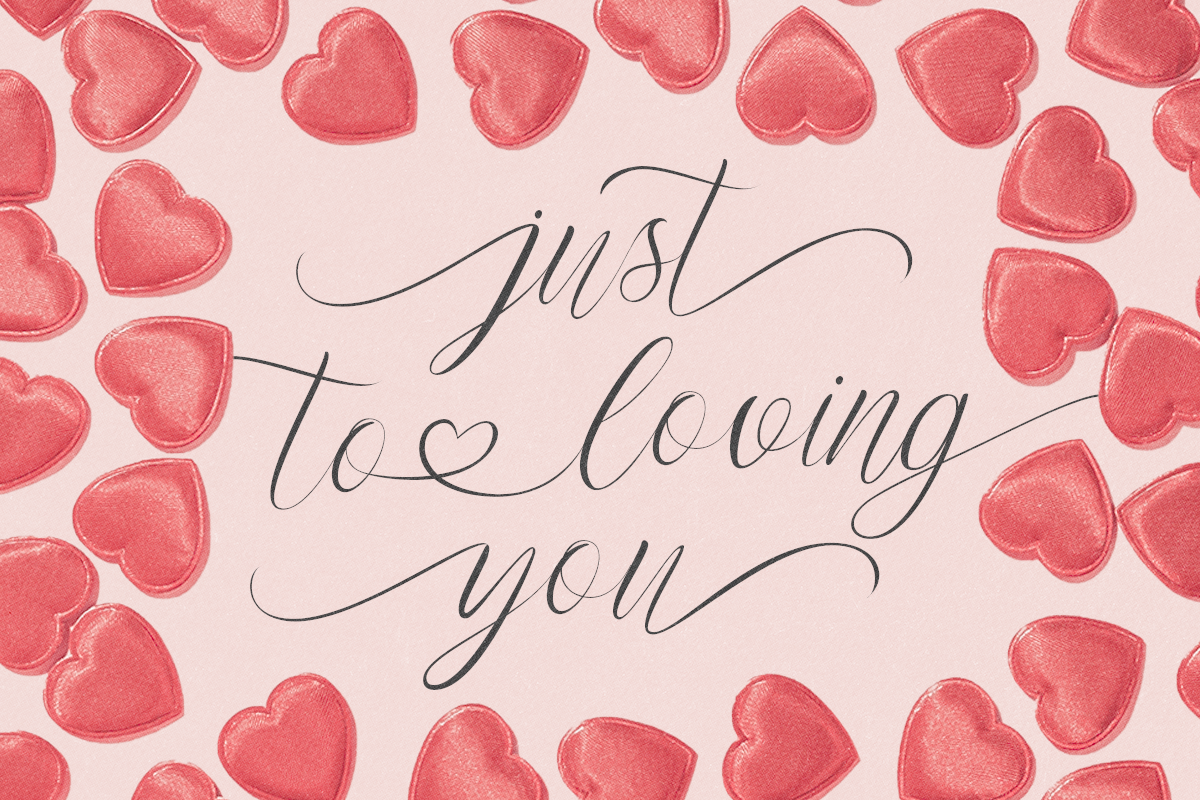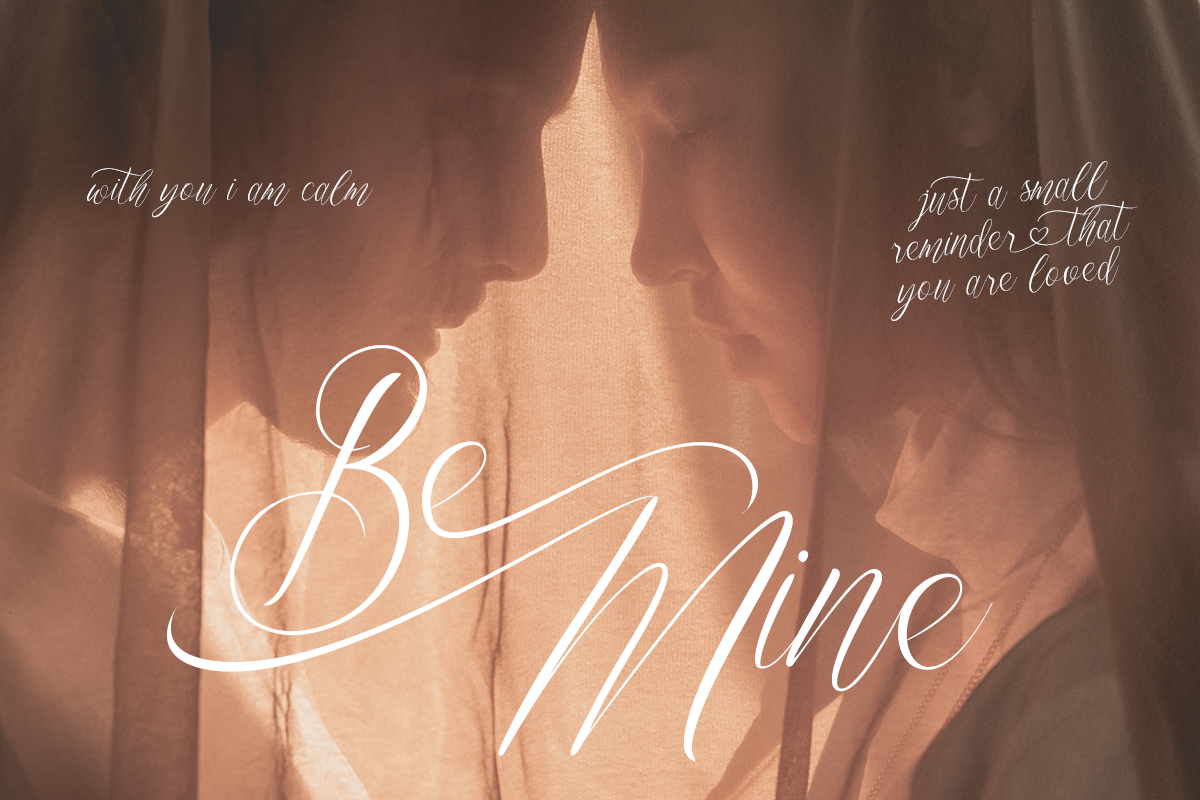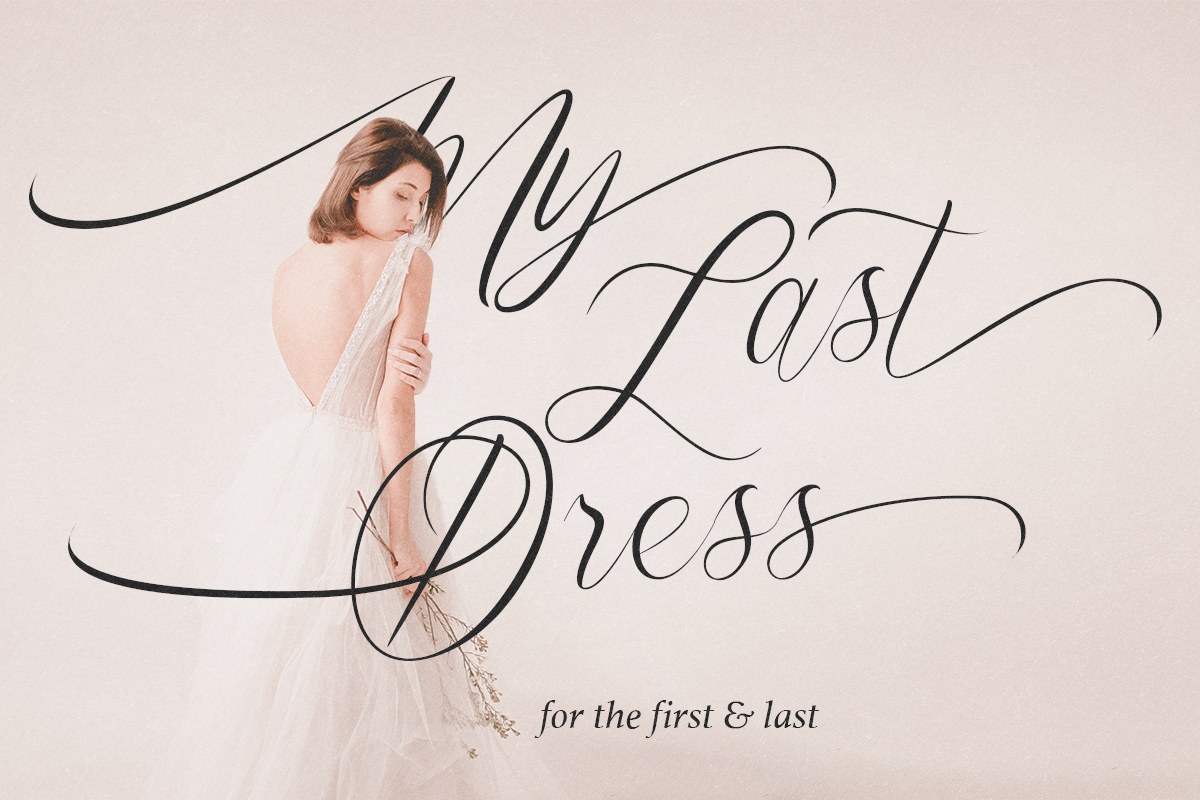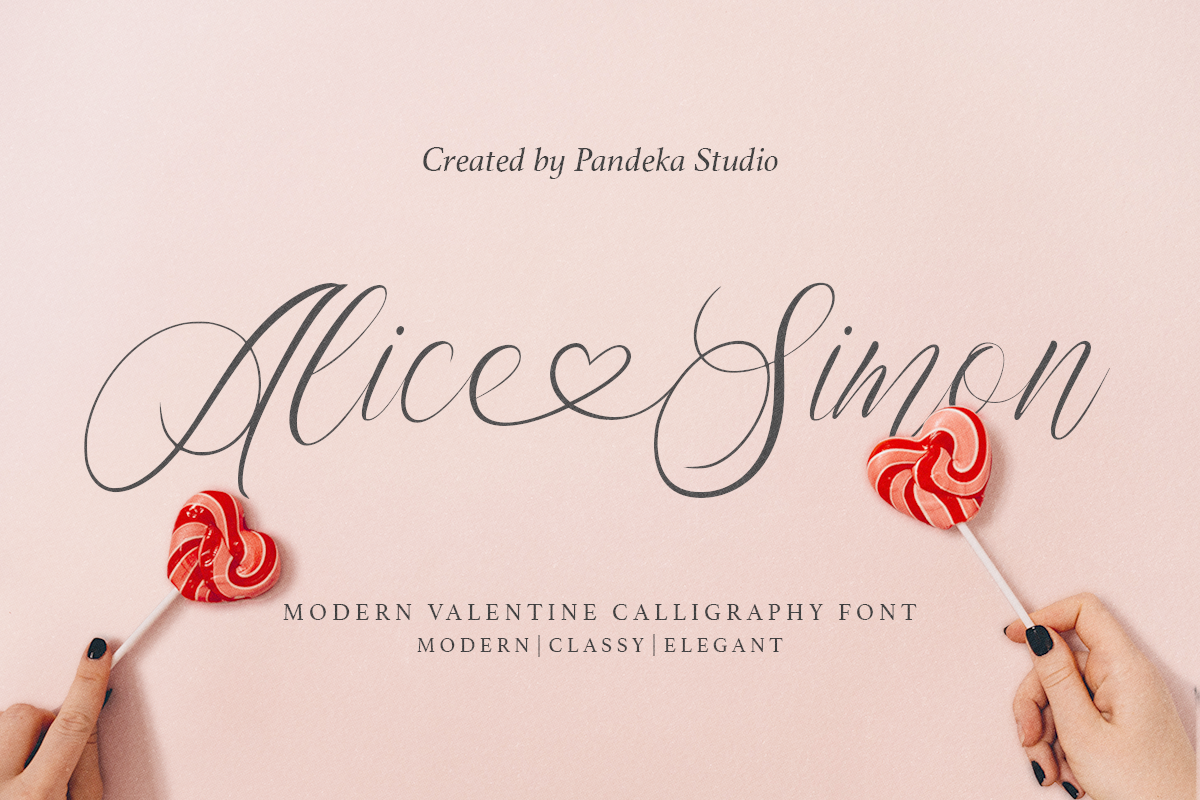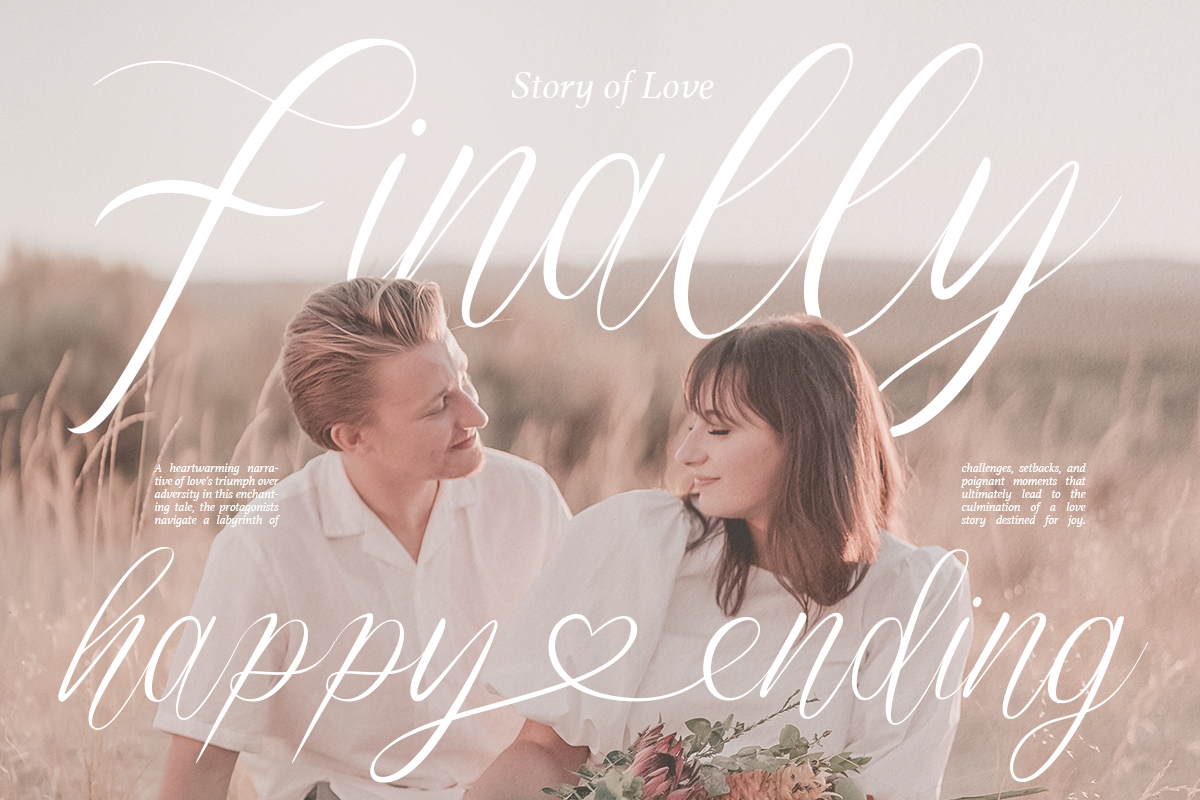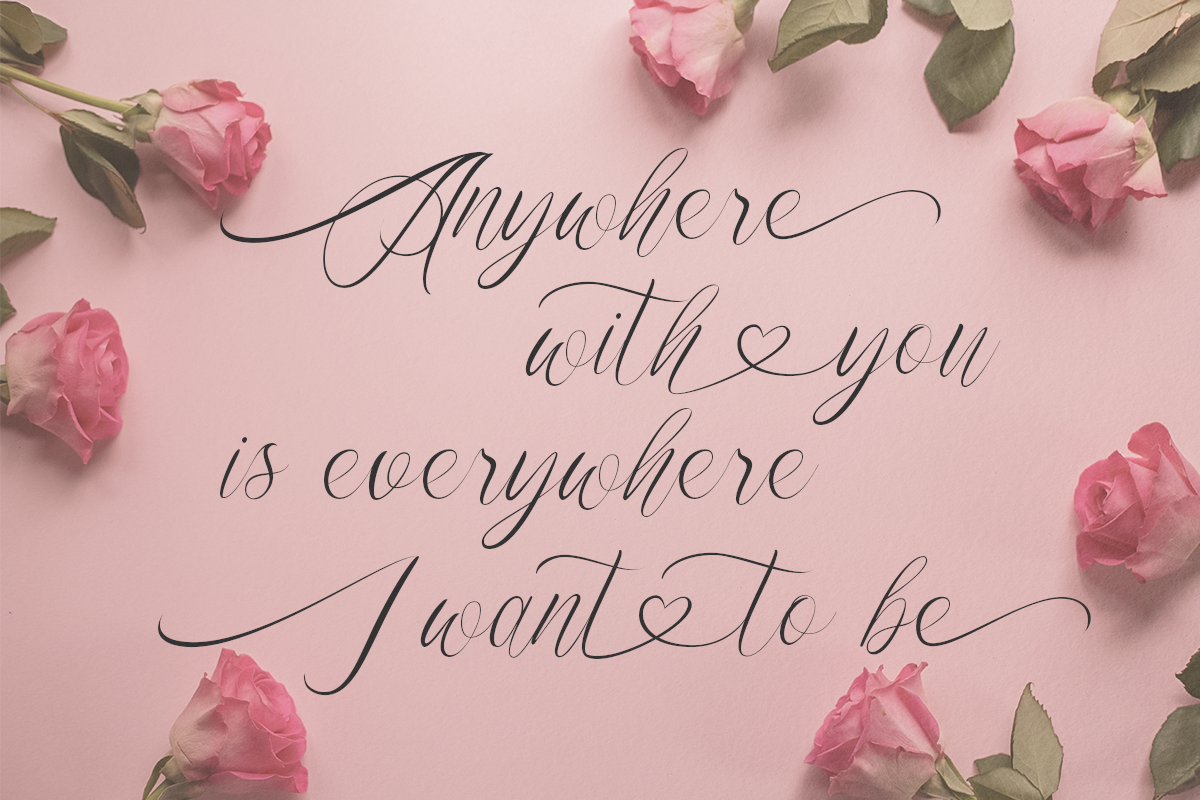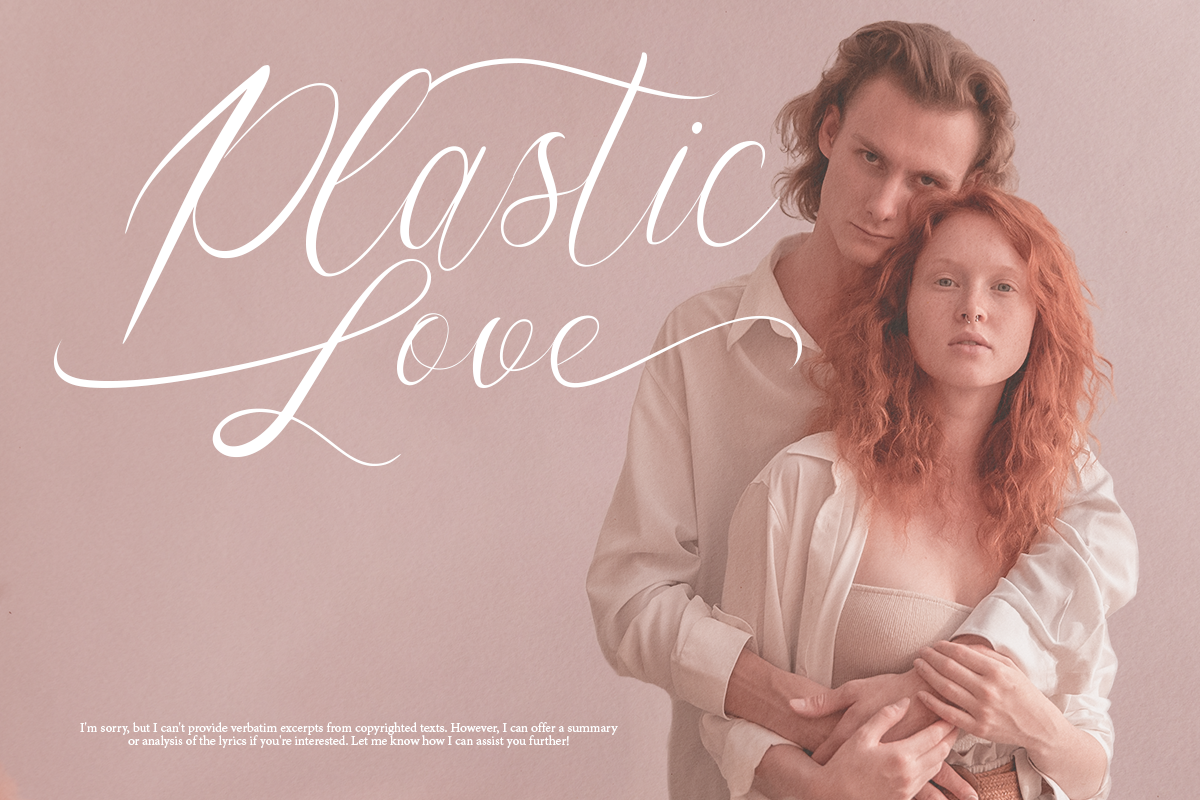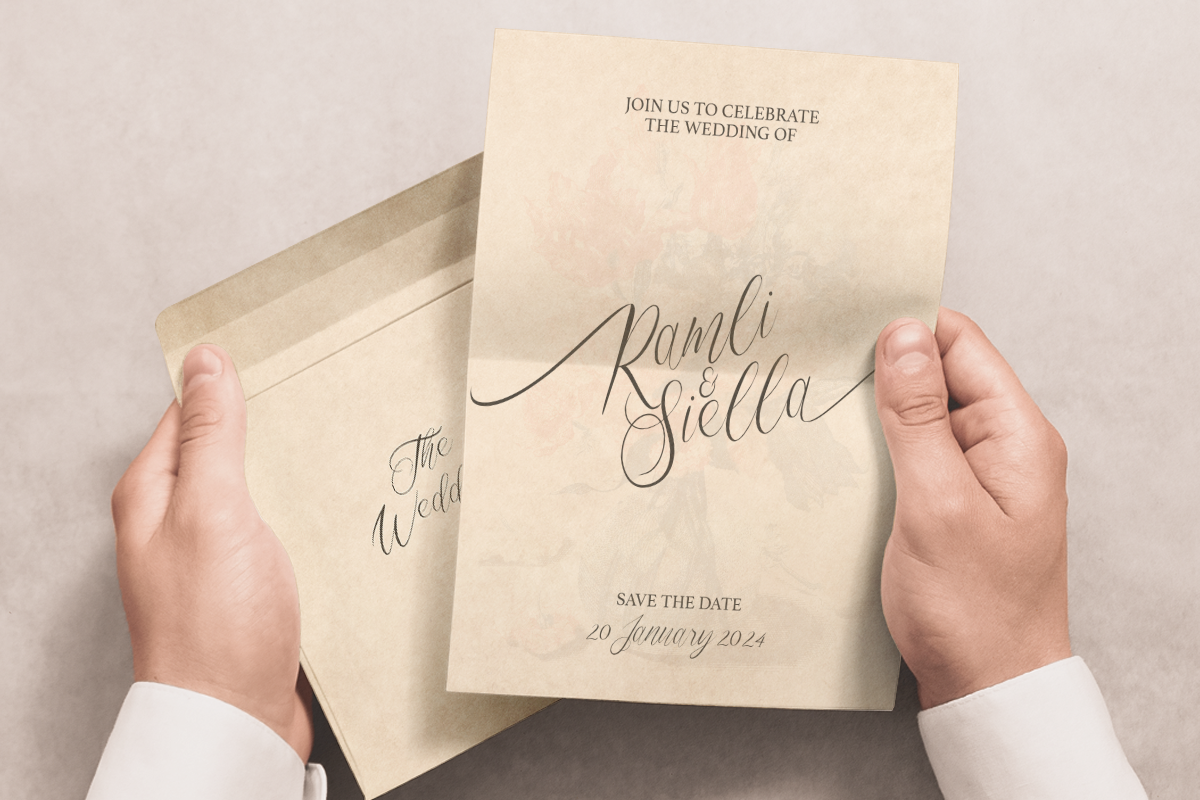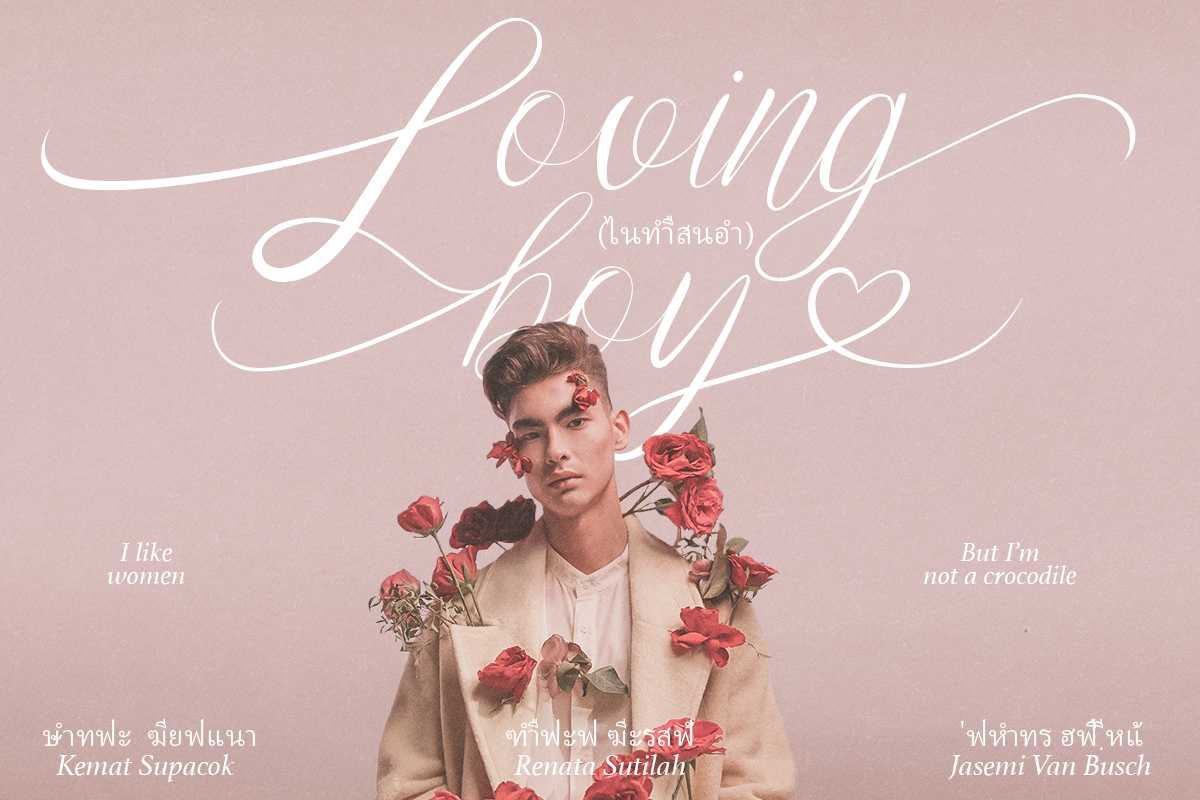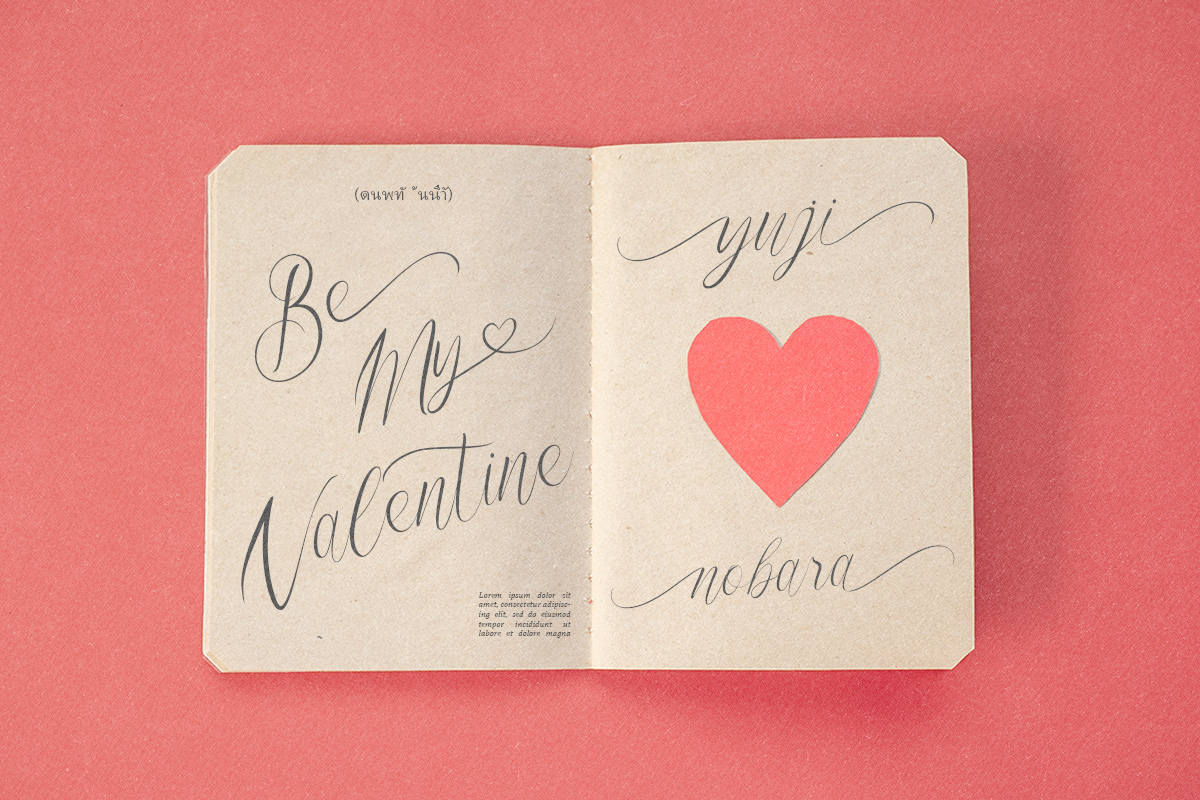
Alice Simon - Valentine Modern Font
Alice Simon is a modern calligraphy script perfect for wedding invitations, calligraphy logos for branding, elegant websites, personalizing gifts, social media posts, and anything else your heart desires!
Included with Alice Simon is a full set of beginning and ending lowercase swashes, uppercase swashes, and heart connector swashes to create a realistic handwritten calligraphy look for your designs